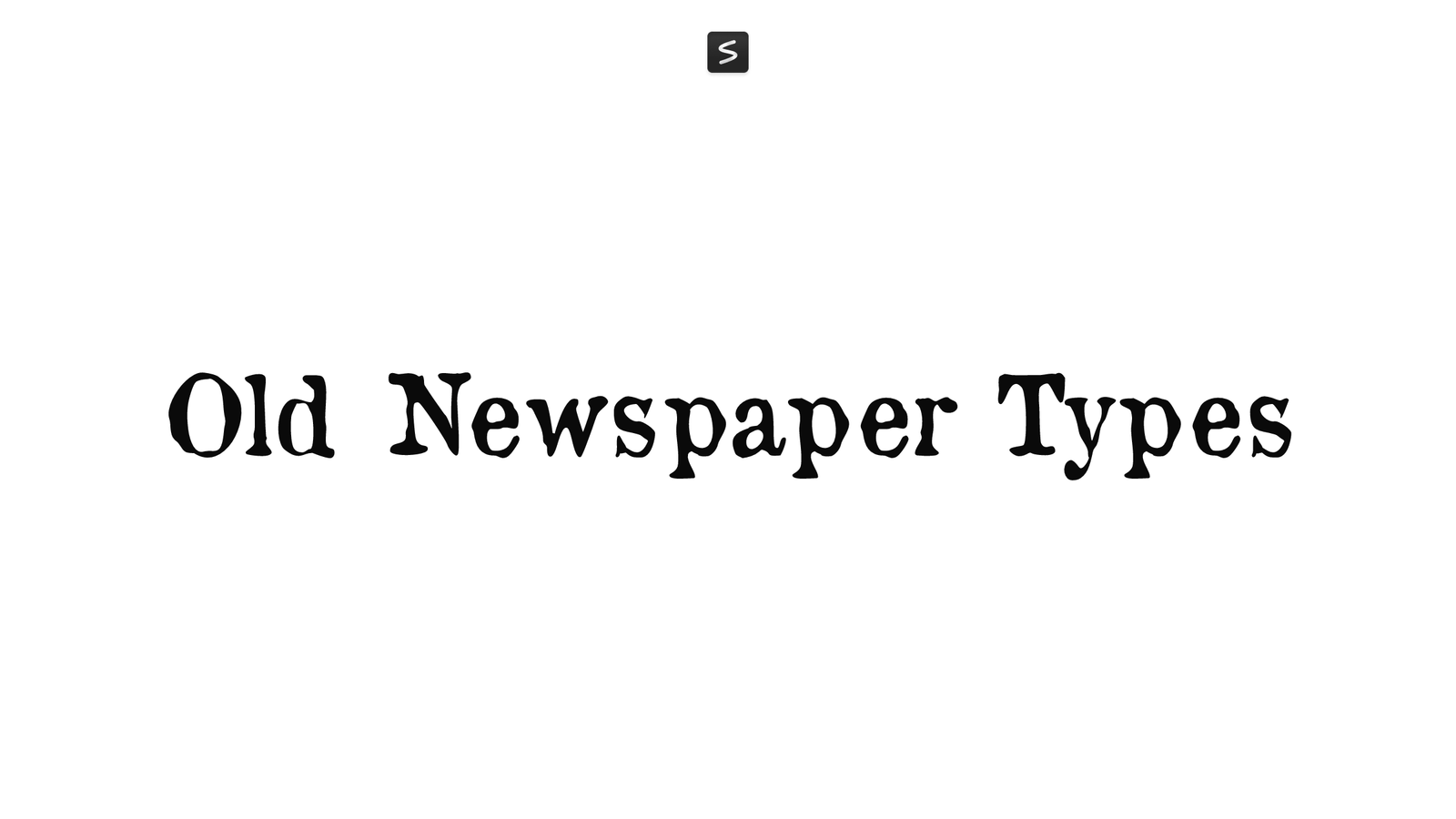
Old Newspaper Types is a display font designed by Manfred Klein that recreates the aesthetic of newspaper typography from the early-to-mid 20th century. It captures the worn, slightly irregular look of vintage newsprint, with letters that feel aged and pressed through decades of printing plates. The typeface has a distinctly historical character, evoking old mastheads, classified ads, and headlines from a bygone era of print journalism.
The font works well for projects that need an authentic vintage or retro feel. Designers use it for vintage posters, book covers, zines, editorial designs, and any project where an old-newspaper aesthetic adds credibility or nostalgia. It’s a straightforward choice when you want text to feel like it came straight from a 1950s publication, without artifice or distortion.